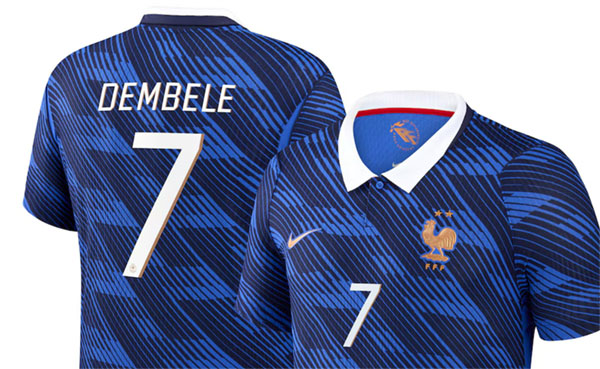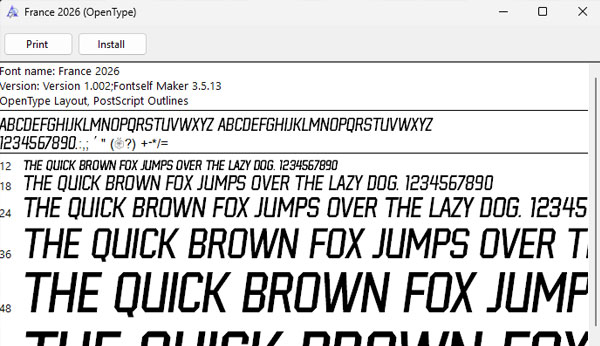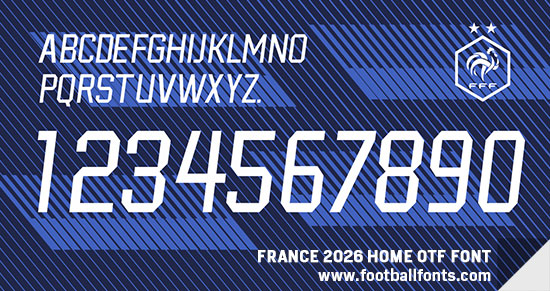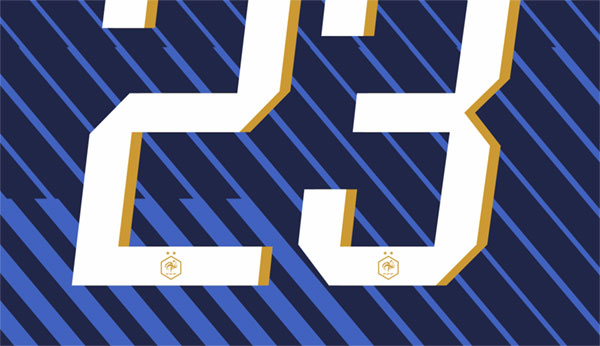
This is the France 2026 font. This is special font for their home kit and it will be used in World Cup 2026.
France 2026 Font
We have font that you can use as France 2026 Home font which is general font with all plain letters and numbers (WITHOUT shade detail and Football Association logo in the bottom of numbers).
We also provide the font in vector file (eps) for more detail letters and numbers with gold shade and football association logo in the bottom of the numbers.
France2026 Vector Font